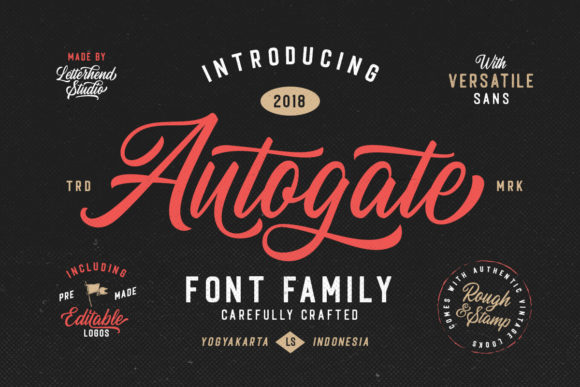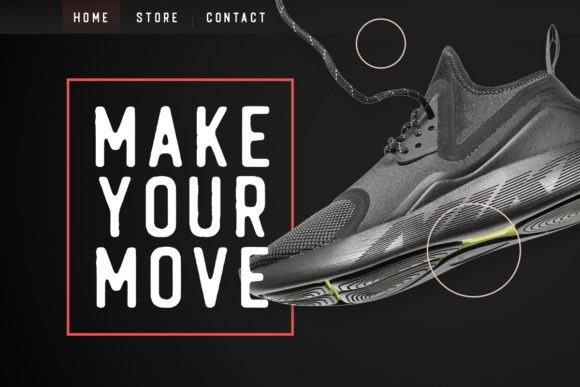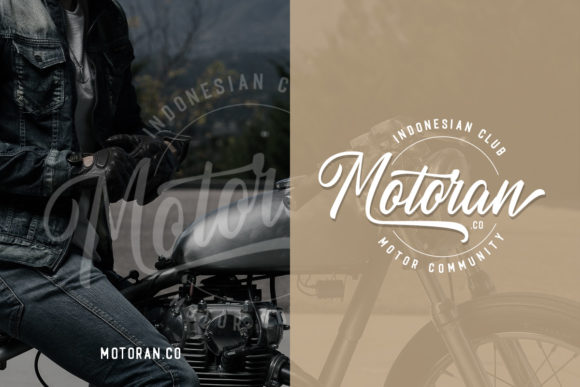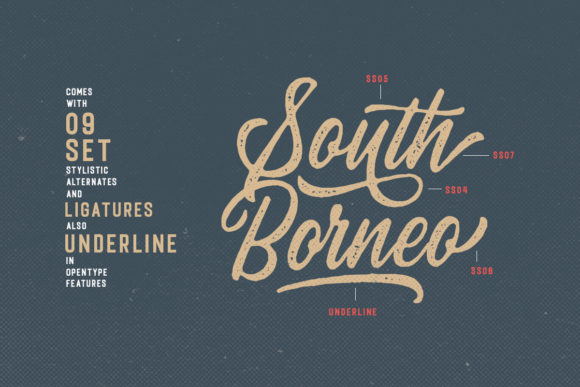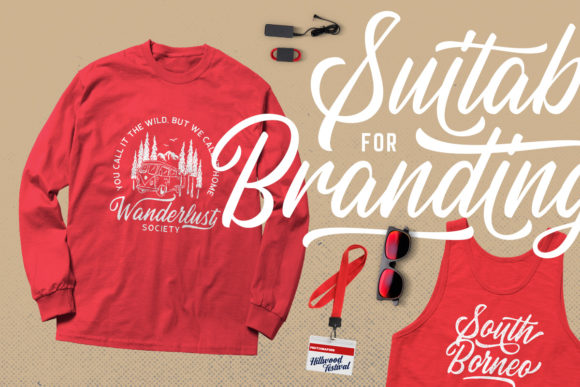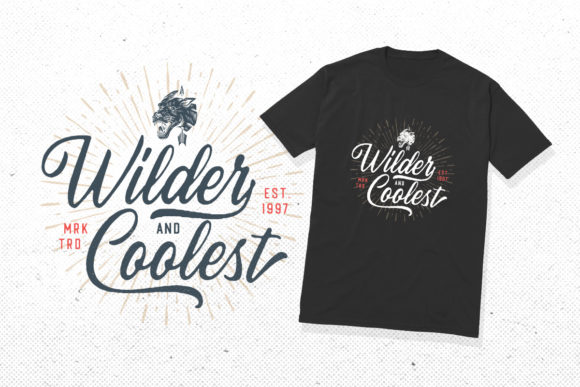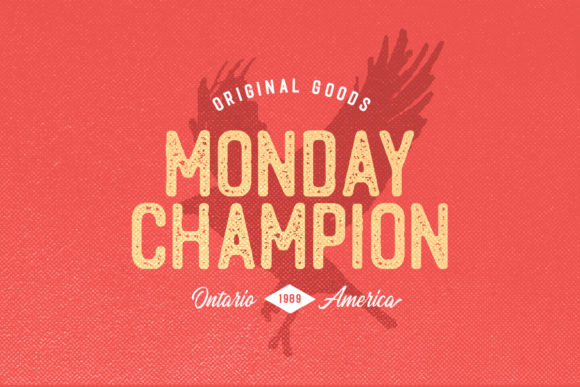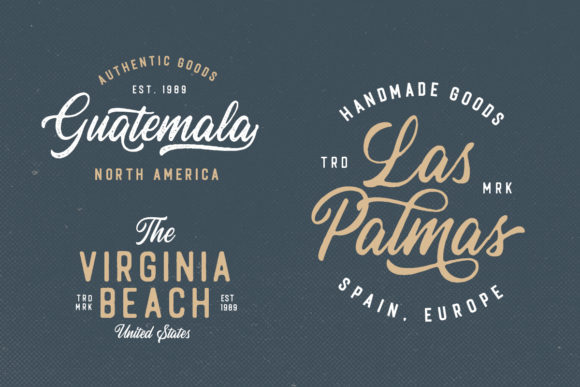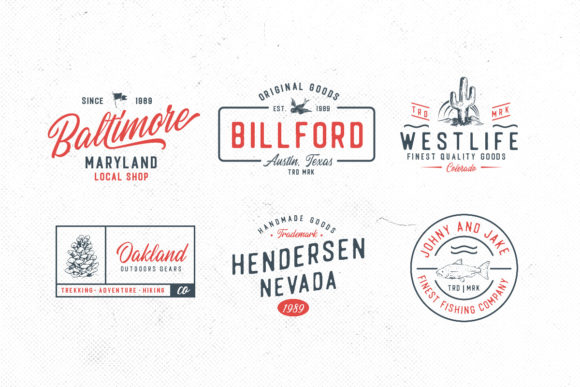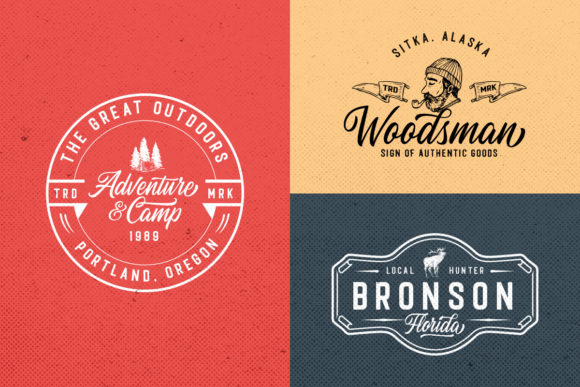
Autogate Family Font
About Autogate Family Font
The Autogate is a fun font duo. It’s a pair of script and sans font that can be combined perfectly.
The classic feel is perfect logotype, apparel, invitations, branding, packaging, advertising, and more!